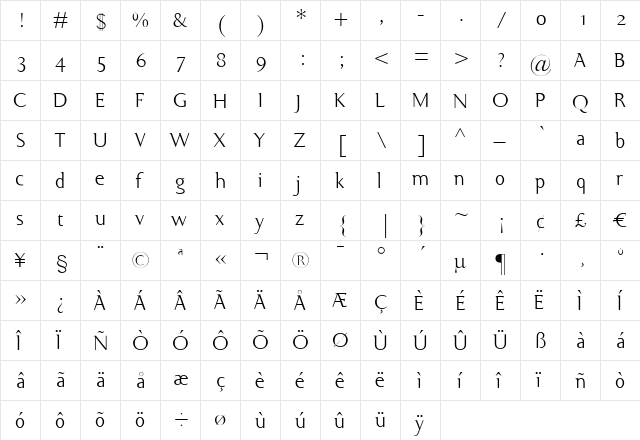
Ela Demiserif Light
Design Context for Ela Demiserif Typeface
Ela Demiserif carries the refined structure of traditional serif typography, with bracketed terminals and considered proportions that communicate credibility and craft. Its slender proportions lend an understated elegance to any composition.
Pro Tip: Set Ela Demiserif at slightly larger body copy sizes than you would a regular-weight serif to compensate for its delicate stroke contrast.